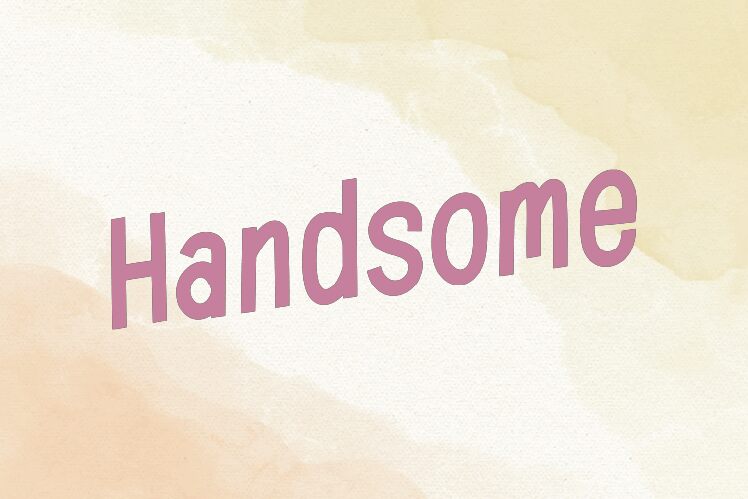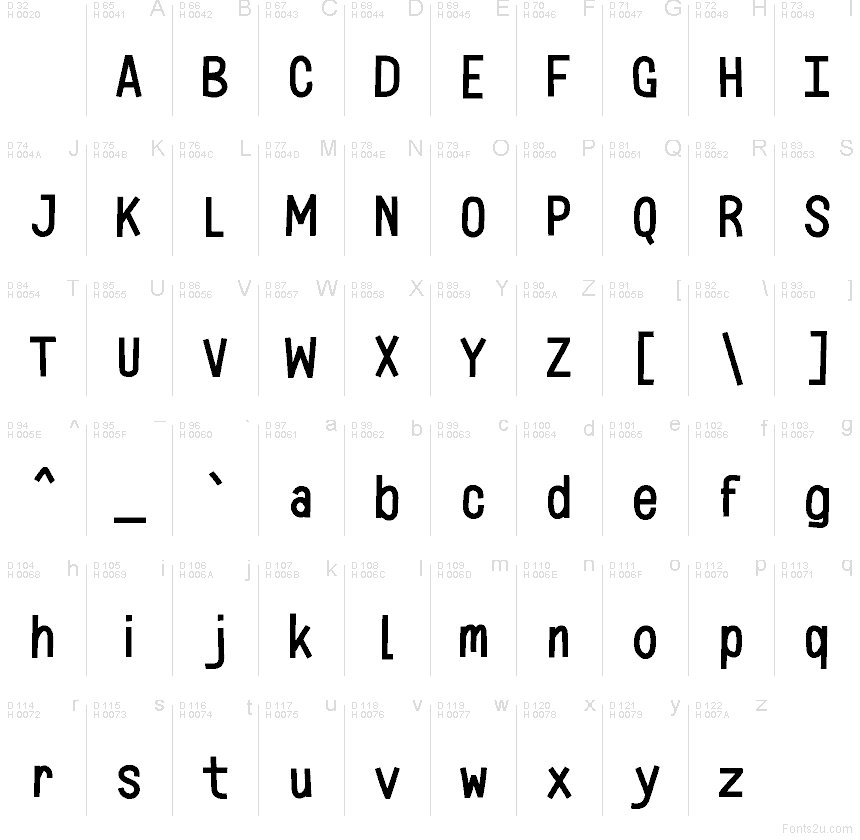
Handsome
Handsome font by Hanna Bie is a free comic display typeface with a tall, inky energy that feels like it was sketched straight onto a page. Its skinny, slightly wobbly strokes and casual joins give every word a loose, handwritten swagger—like quick notes from a storyboard artist. Letters stack closely, creating a dense, black rhythm that grabs attention without losing that friendly, doodled charm.
Using Handsome, this free font, you can give comics, webtoons, zines, kids’ posters, playful branding, and social graphics a voice that’s informal but confident. It reads like fast, expressive handwriting, so shouty headlines and punchy sound effects really land. Try pairing it with a clean geometric sans for body copy, and set Handsome a bit larger than usual to let those narrow, quirky forms breathe.